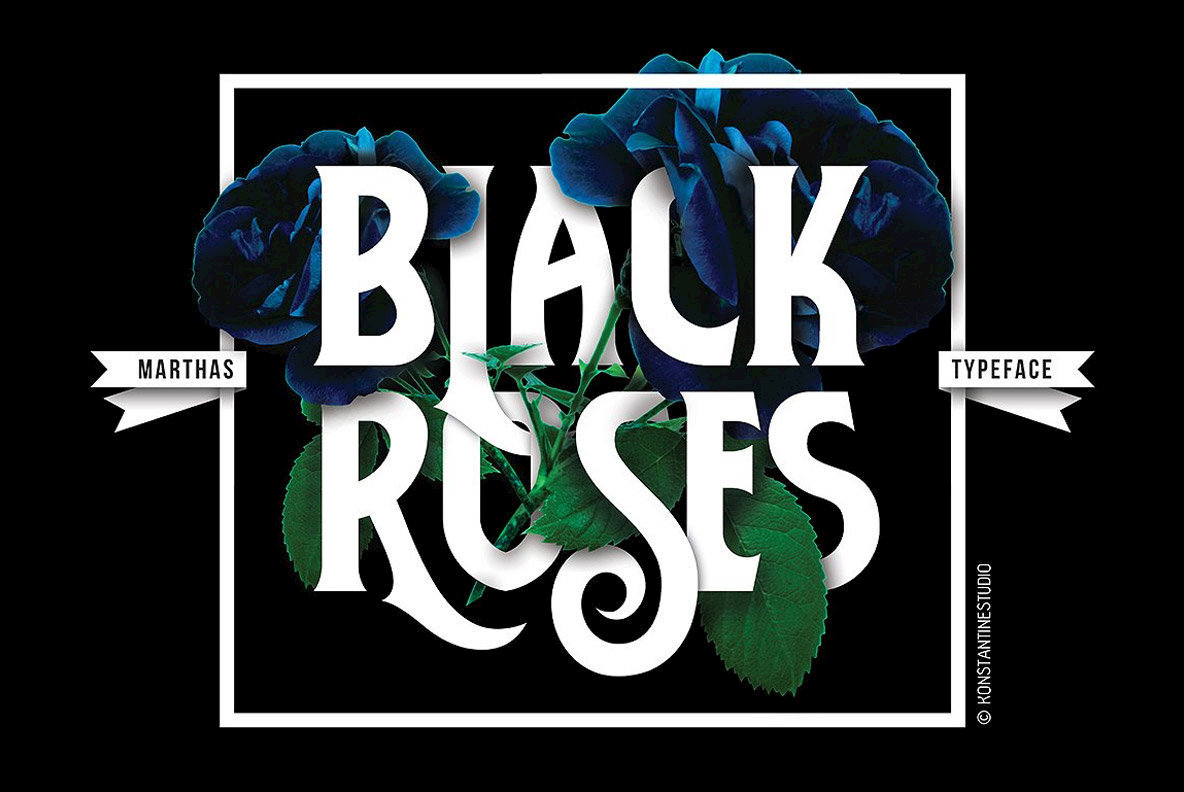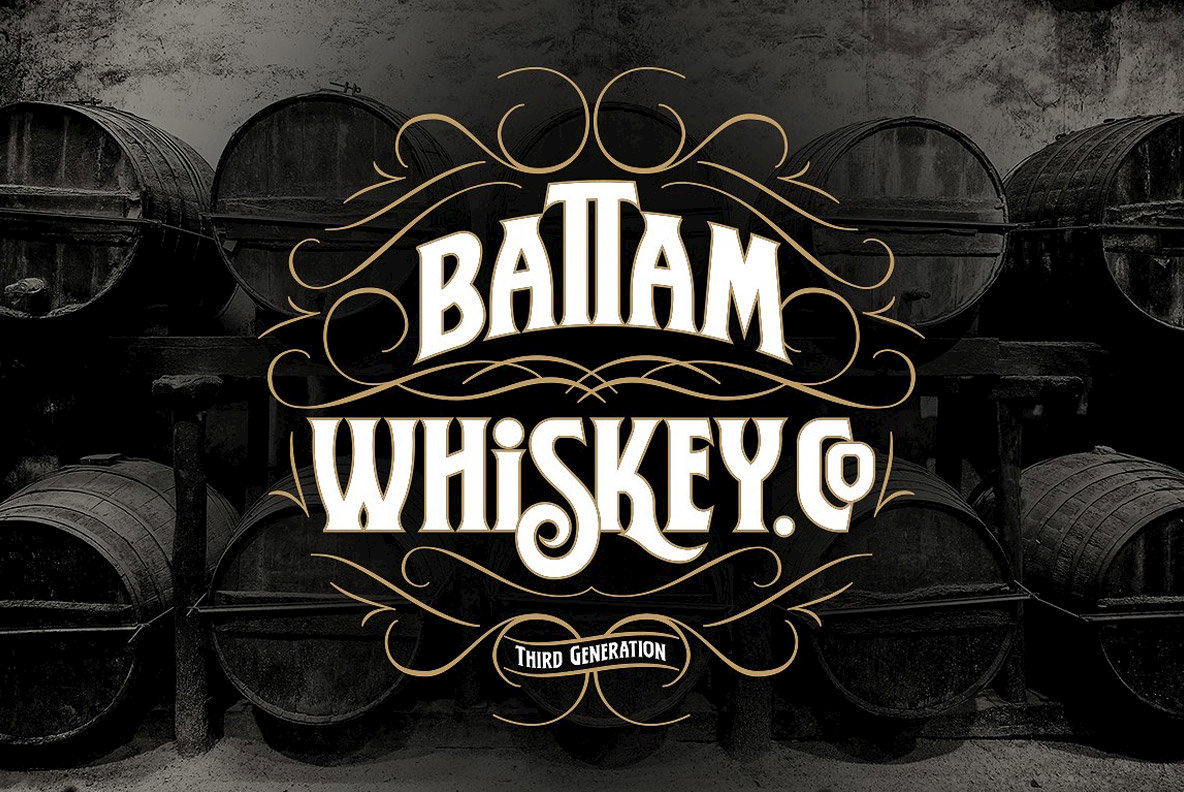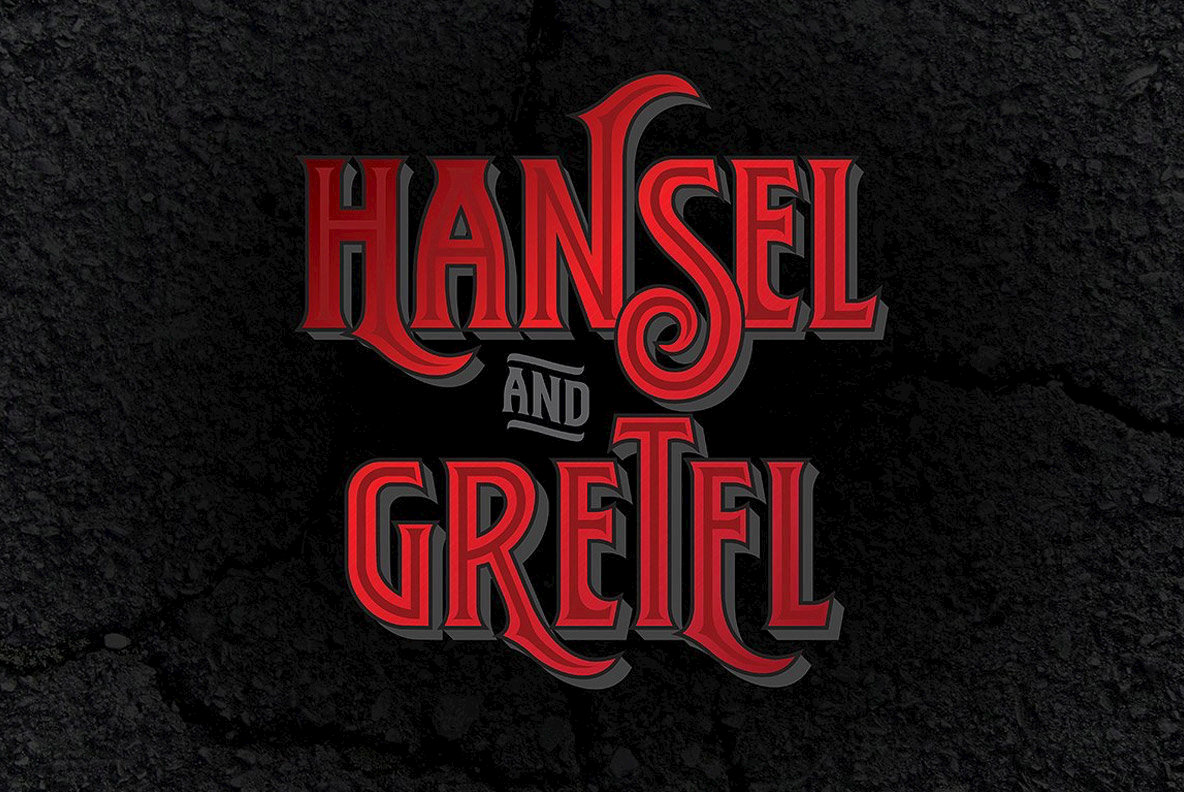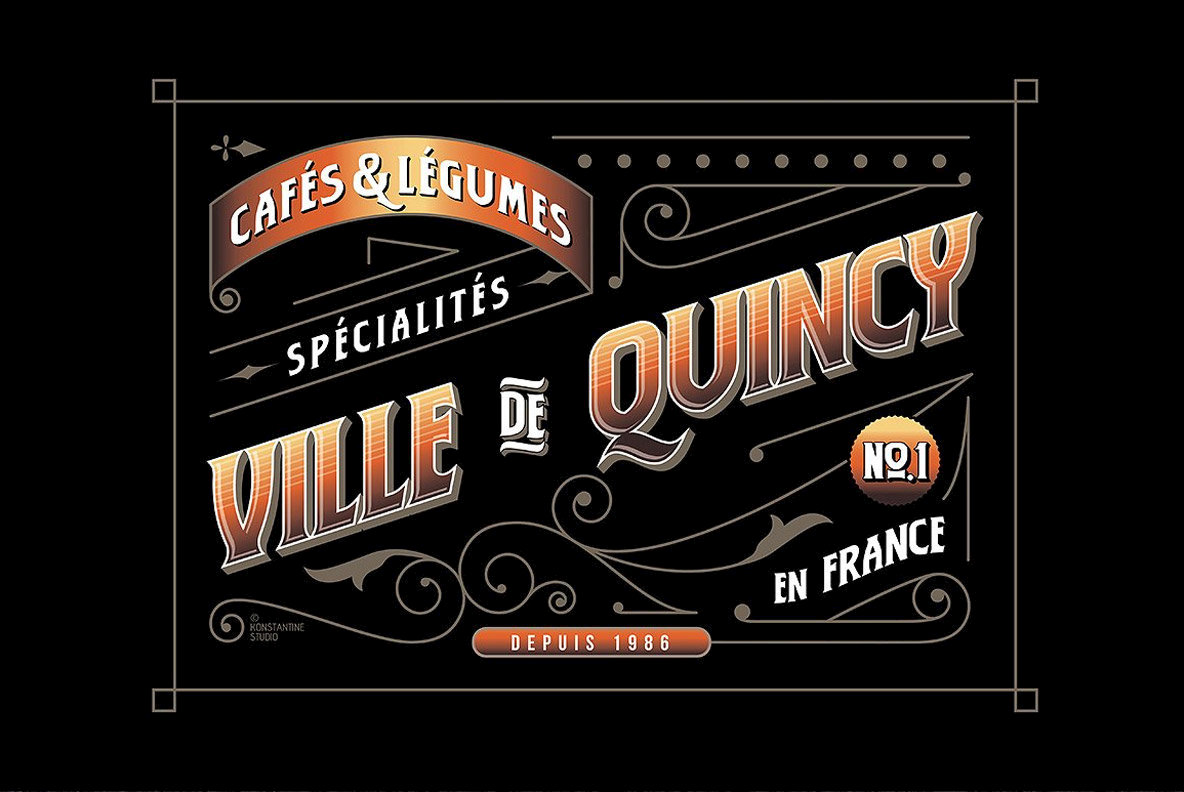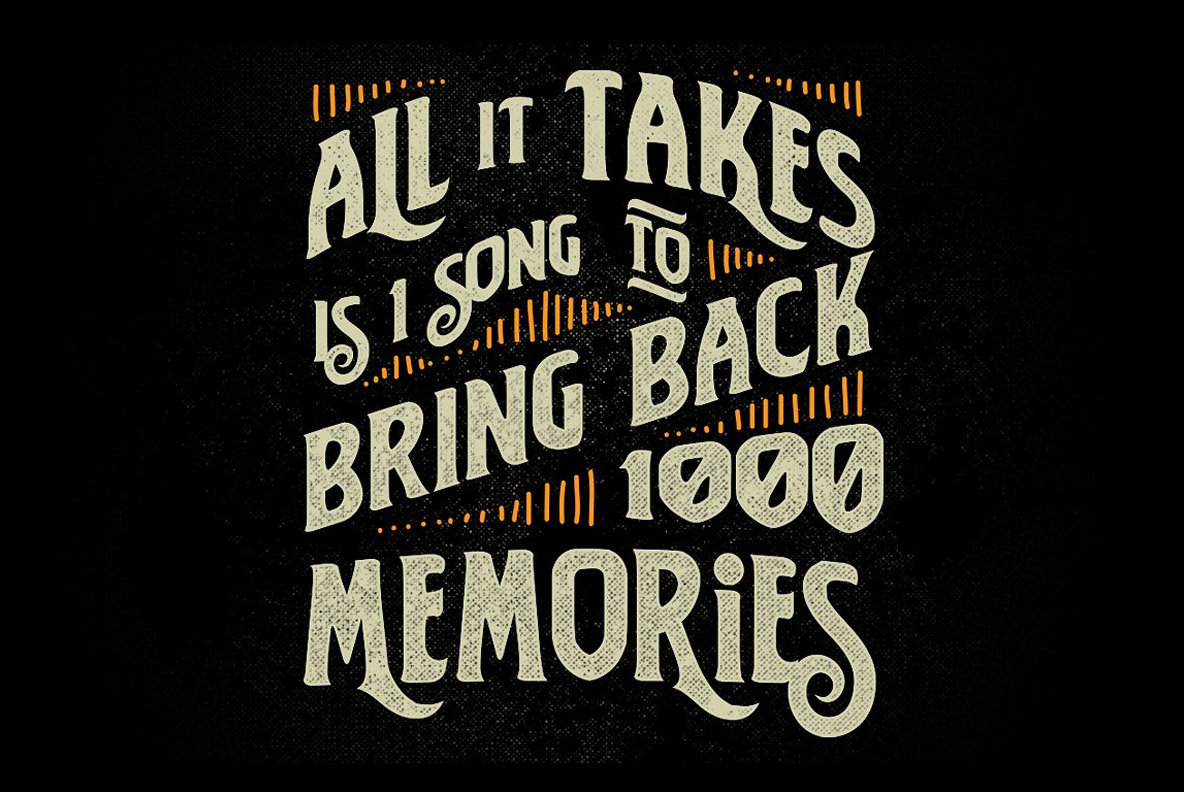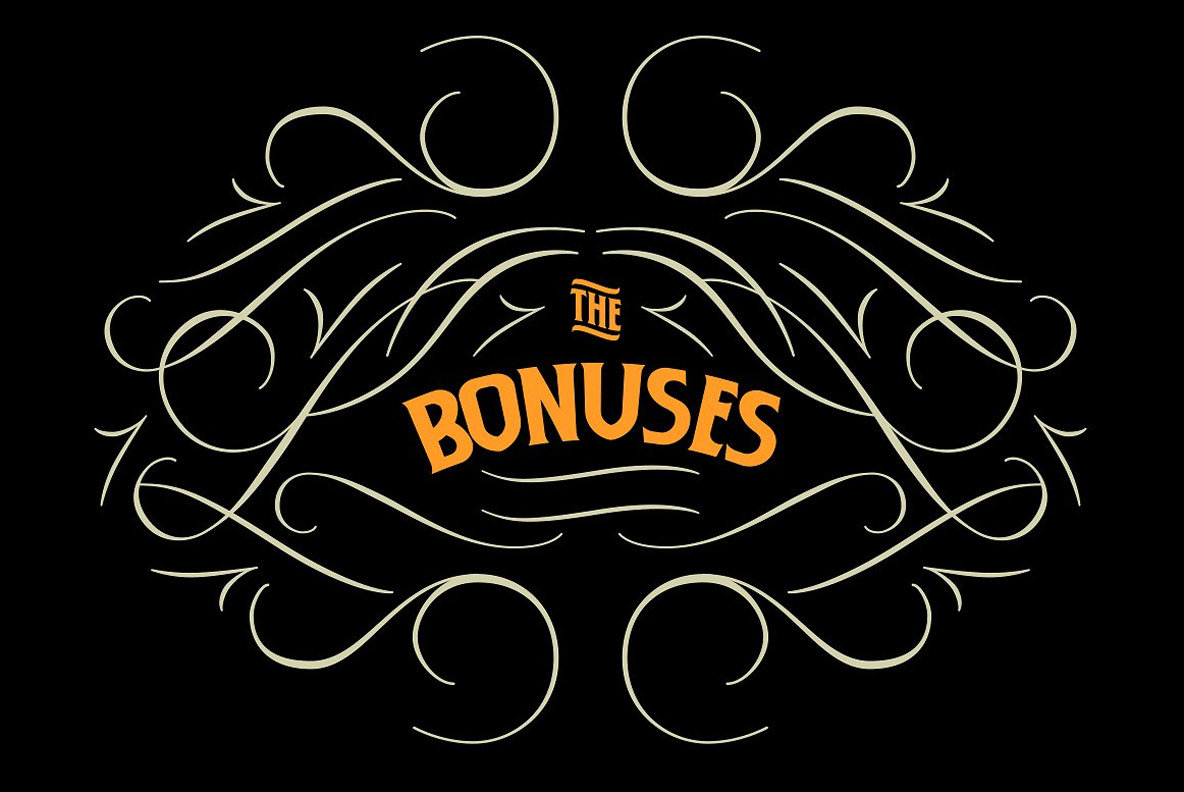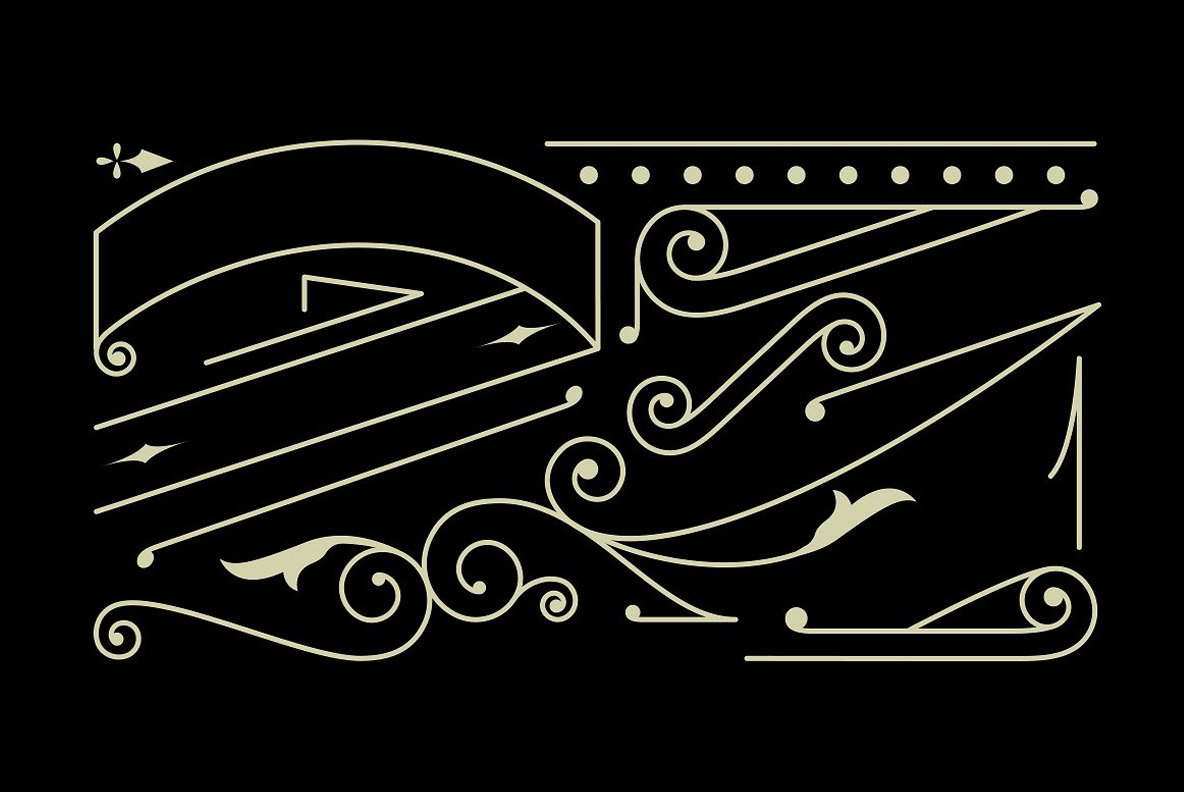
Marthas Font
Introducing Marthas, The time-machine between that classic wave typeface and nowadays vintage enthusiasm.
Inspired from the nowadays vintage hipsters enthusiasm, the needs of classic fonts are raising high for any industries that bring the trend as their red carpet to attract the market. So that's the Marthas made based on.
It comes with a complete set of Uppercase, Lowercase, Numbers, Accents and Punctuations. Oh and calling all of typography and lettering junkie, the Stylistic Alternates, Ligatures, and Ornaments Bonuses are included as well to support your creativity.